Stencil in Use: A Collection of Stencil Typefaces
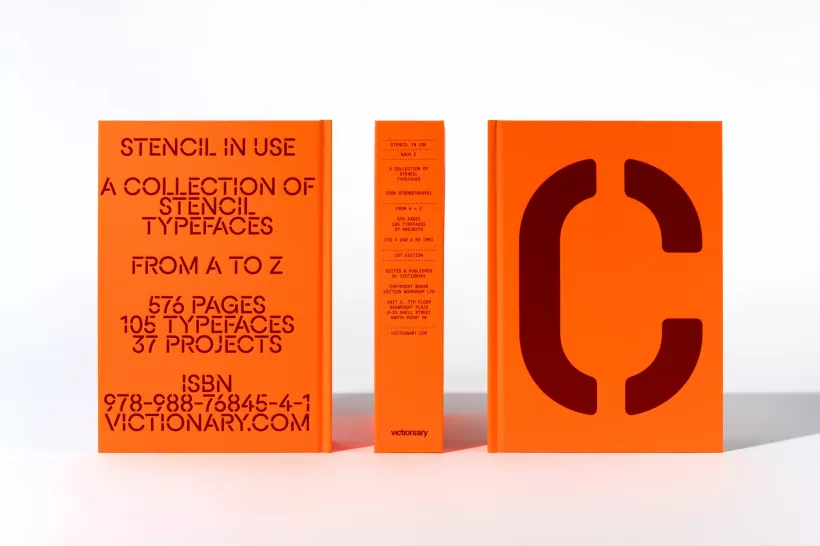
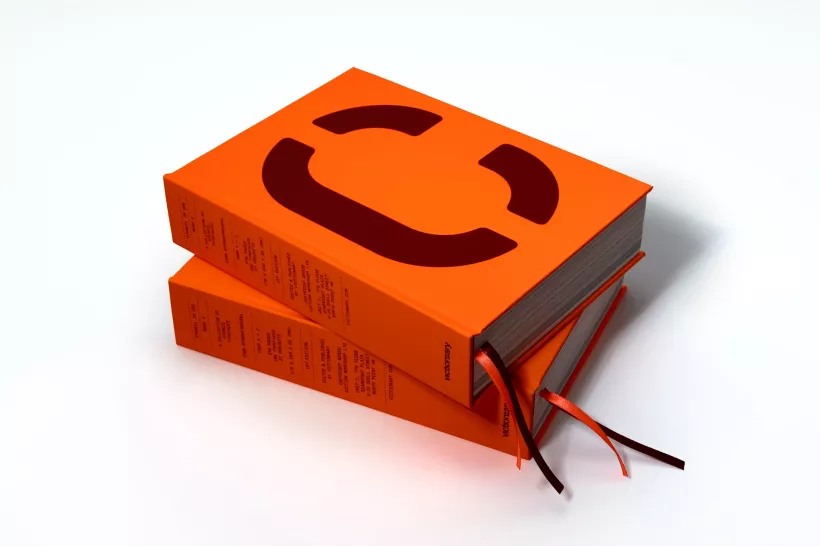
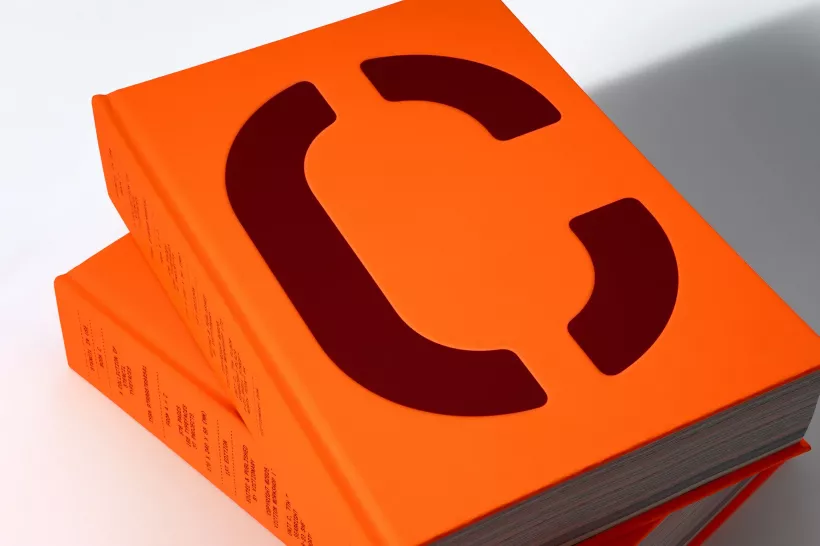
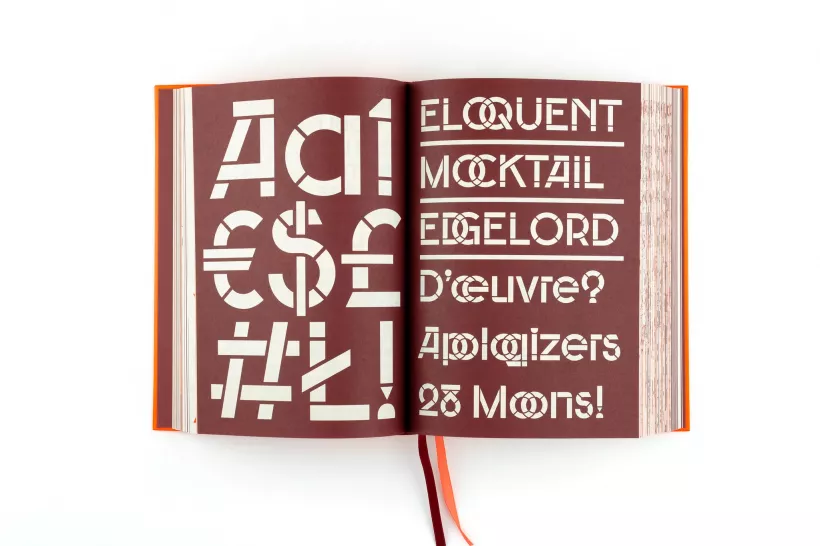
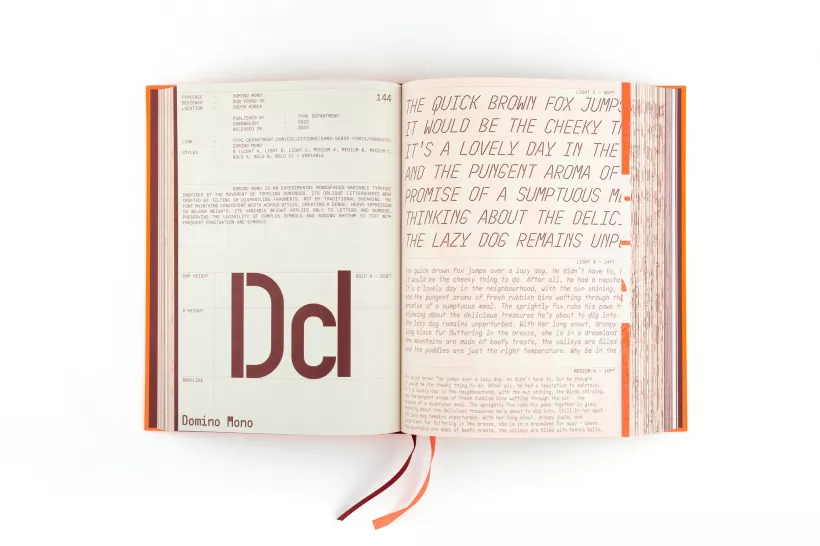
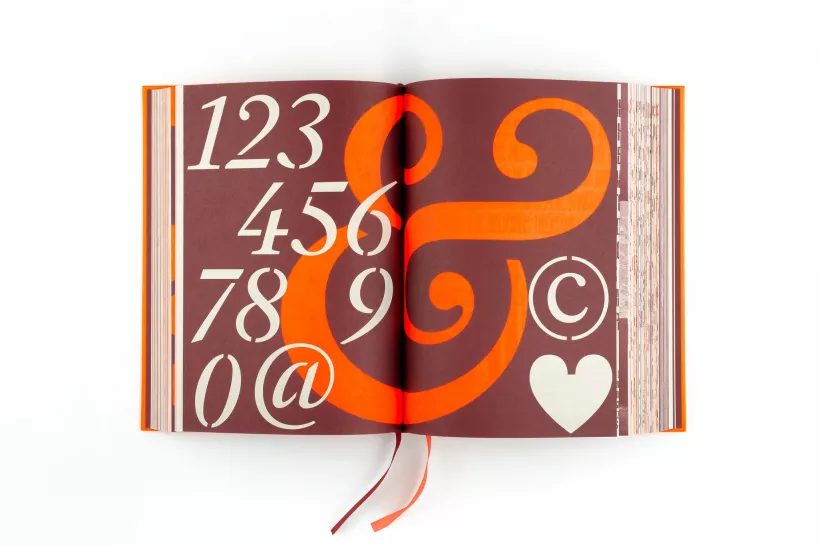
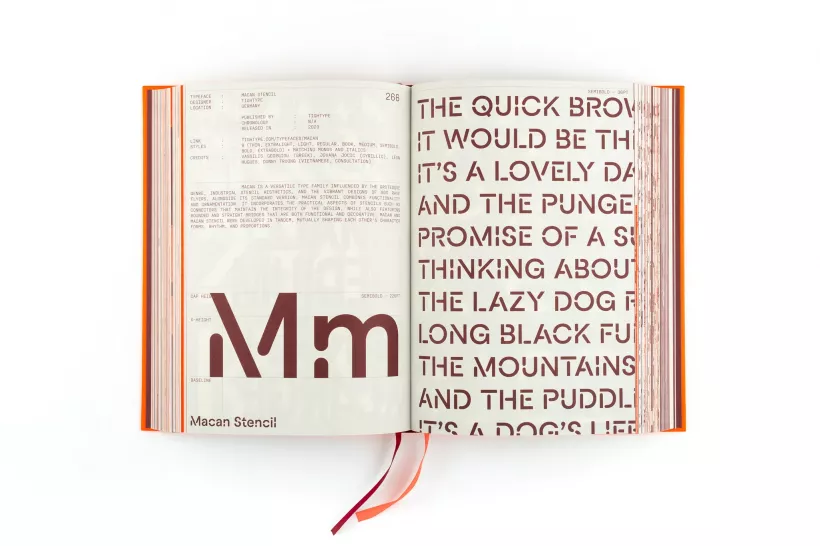
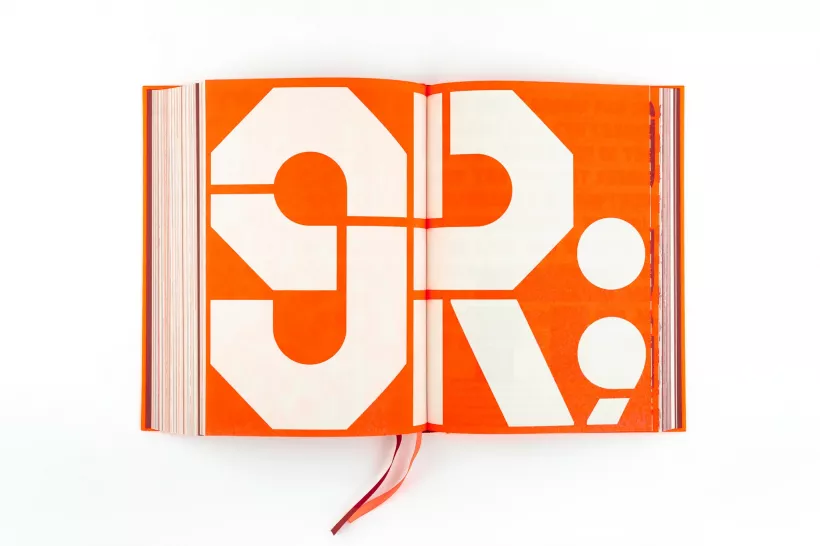
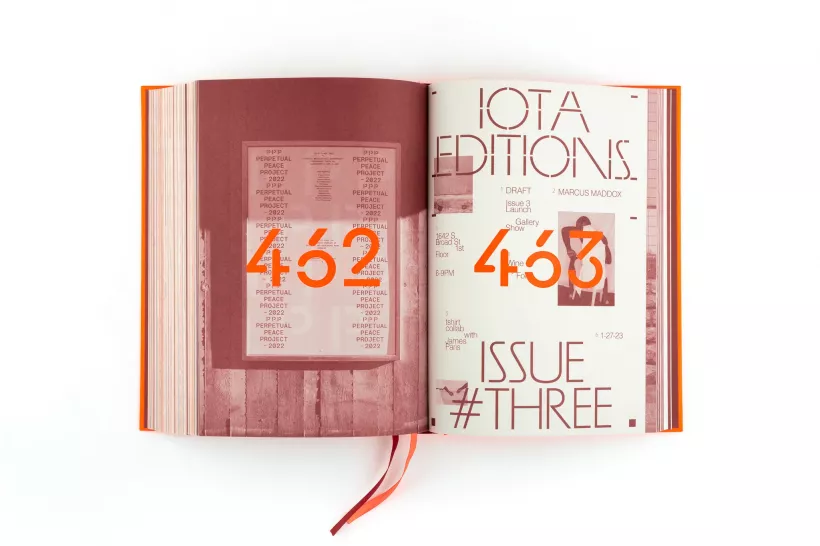
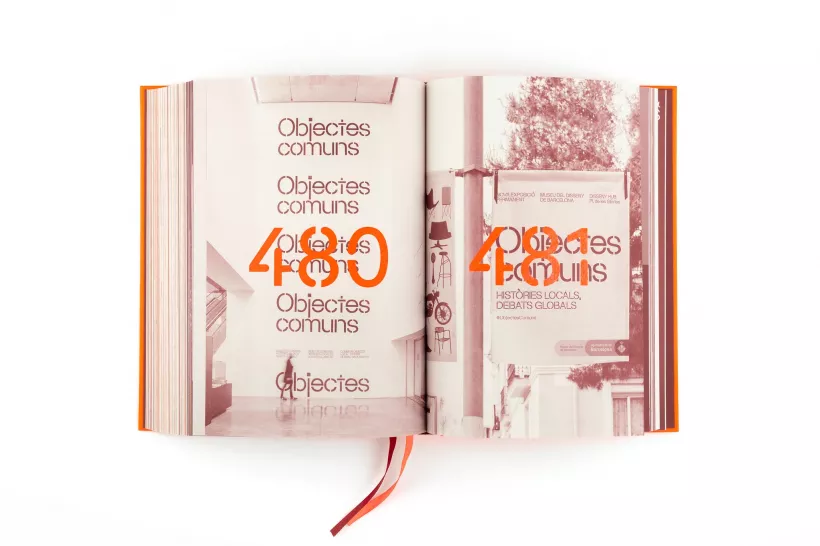
Stencil in Use collates the best typefaces for big canvases and serves as a reference point for inspiration-seeking designers and typographers alike.
Known for their bold impressions characterised by strategic slits and openings, stencil fonts are more than just fonts seen on spray-painted shipping crates or military-inspired paraphernalia. Instead, they are an expressive type that emphasise spacing, size, and arrangement to create impactful and dynamic text elements, often with a focus on geometric precision to allude to a sense of strength and contemporaneity.
A continuation of the Sans/Sans Serif In Use collection, this edition features a curated selection of stencil type specimens, their design applications, and the thoughts that go behind the craft. Stencil In Use collates the best typefaces for big canvases and serves as a reference point for inspiration-seeking designers and typographers alike.